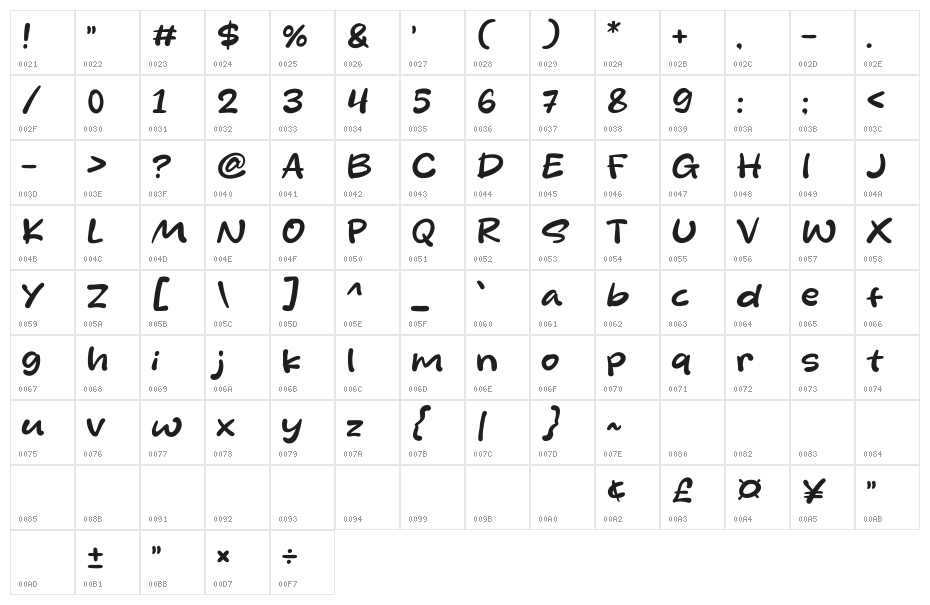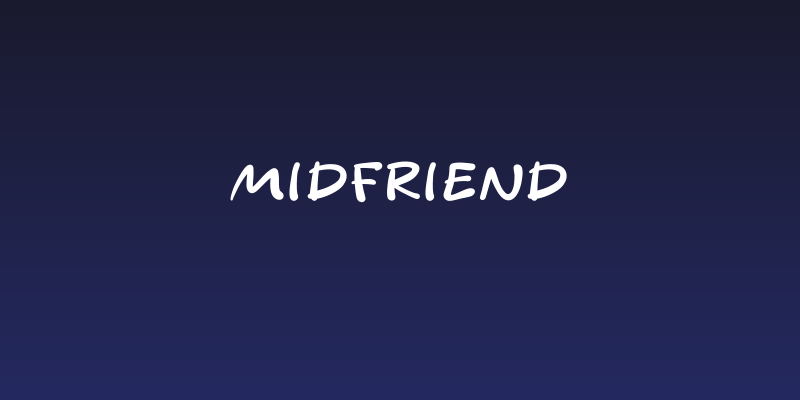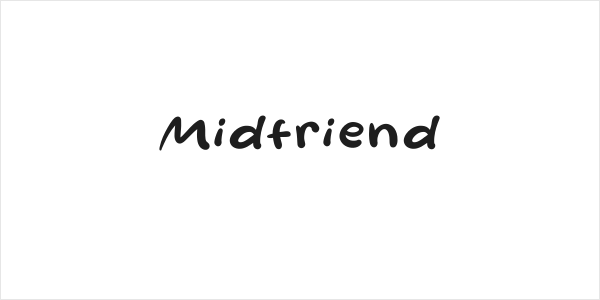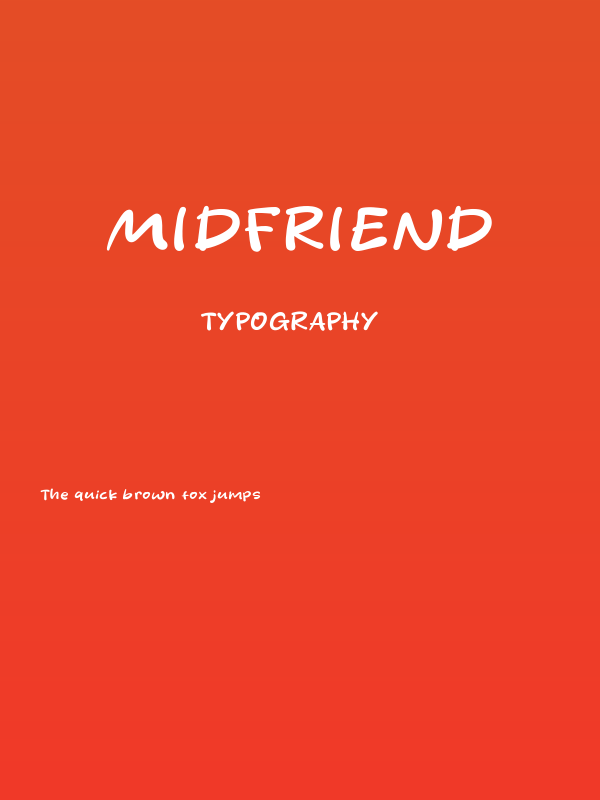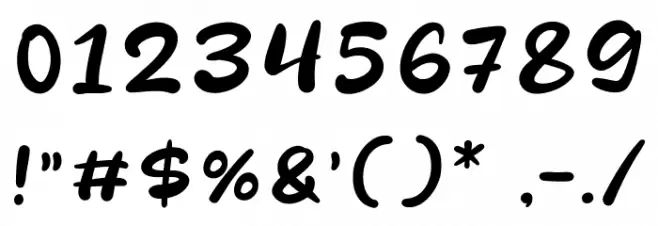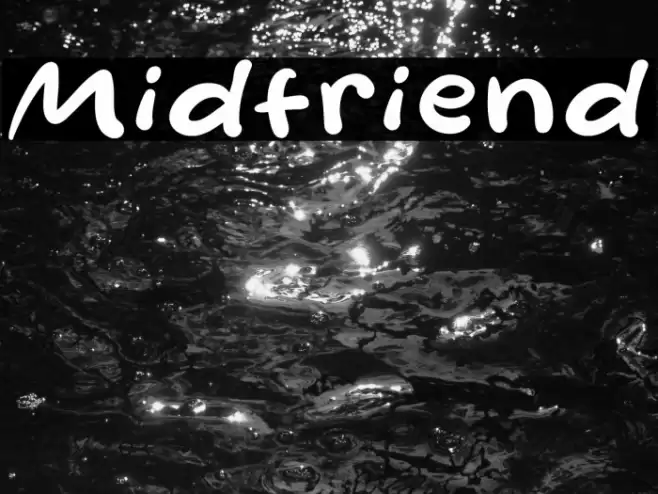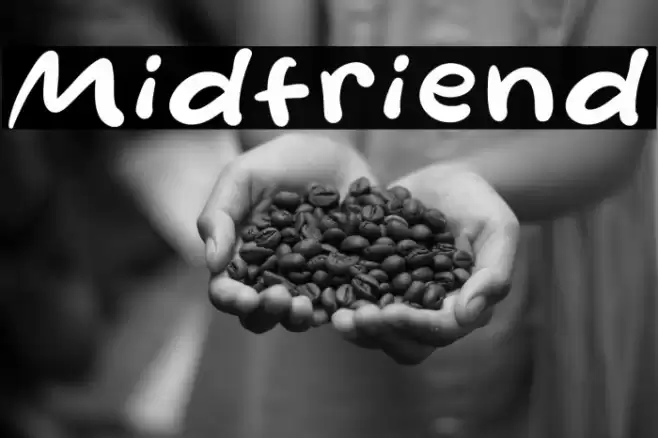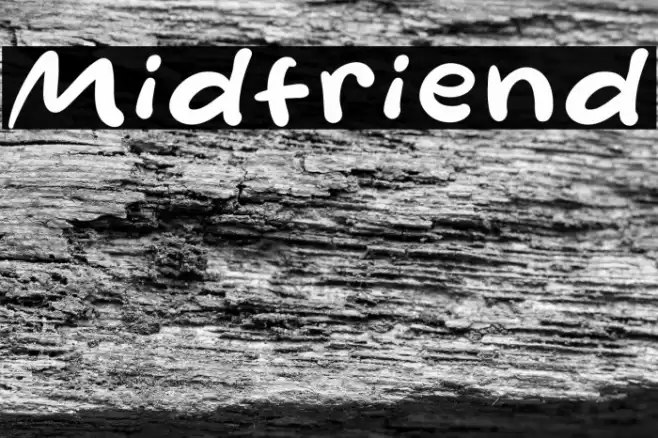
Midfriend Font
Midfriend Description
This playful and casual font features a handwritten style with smooth, rounded edges and a friendly appearance. The characters are slightly slanted, giving a dynamic and informal feel. The uppercase and lowercase letters maintain a consistent flow, while the numerals and special characters complement the overall aesthetic. The font's design is approachable and versatile, making it suitable for a variety of creative projects.
| Overall Style | Casual |
| Use Case | Logos, Headlines, Informal text |
| Proposed Projects | Ideal for greeting cards, children's books, casual branding, and social media graphics. |